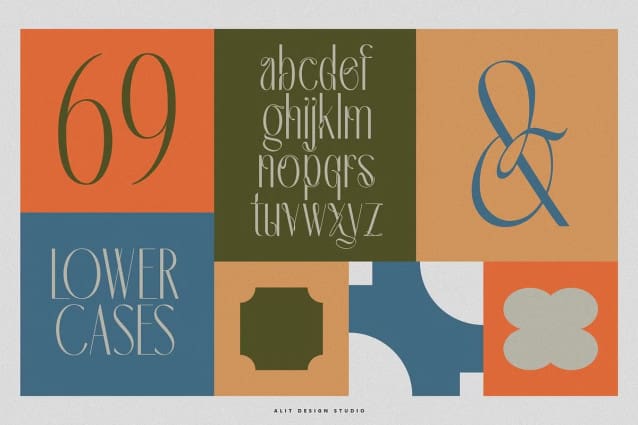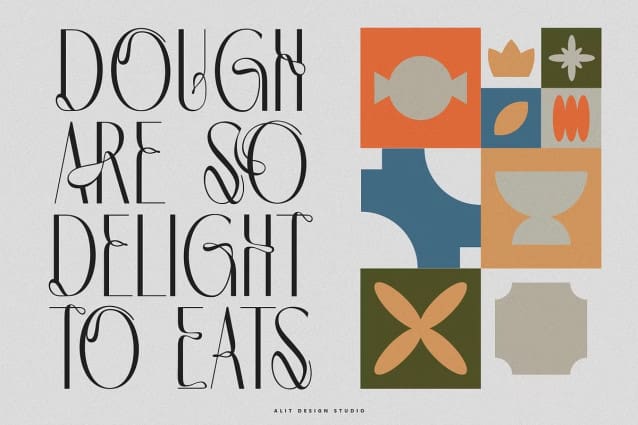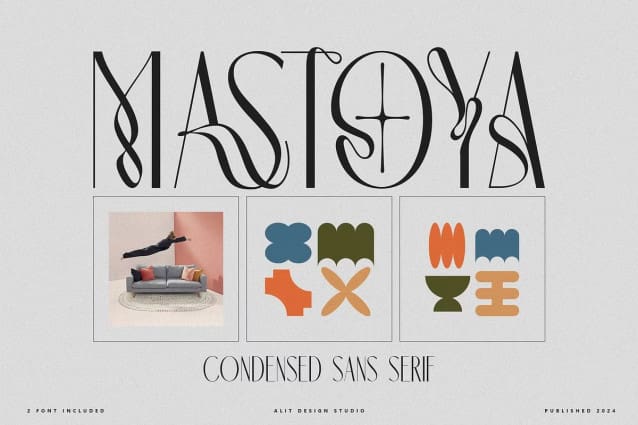
Mastoya Font
Mastoya Font, a modern sans serif font that redefines elegance and versatility. Mastoya stands out with its alternative swaying and dynamic curves, infusing your text with a unique and captivating personality.
Features:
Modern Sans Serif: Sleek and contemporary, perfect for a wide range of design applications.
Alternative Swaying Curves: Adds a distinctive, artistic touch to your typography, setting your work apart from the crowd.
Dynamic Design: Each character is crafted to bring a sense of movement and fluidity, enhancing readability and visual appeal.
Versatile Use: Ideal for branding, editorial design, web design, advertising, and more. Why Choose Mastoya?
Mastoya Font is not just a font; it’s a statement. Its unique blend of modernity and dynamism makes it suitable for both professional and creative projects. Whether you’re aiming for a clean and polished look or something more expressive and bold, Mastoya adapts to your needs, making it a valuable addition to your design toolkit.
Transform your text and inspire your audience with the Mastoya Font – where modern design meets dynamic expression.